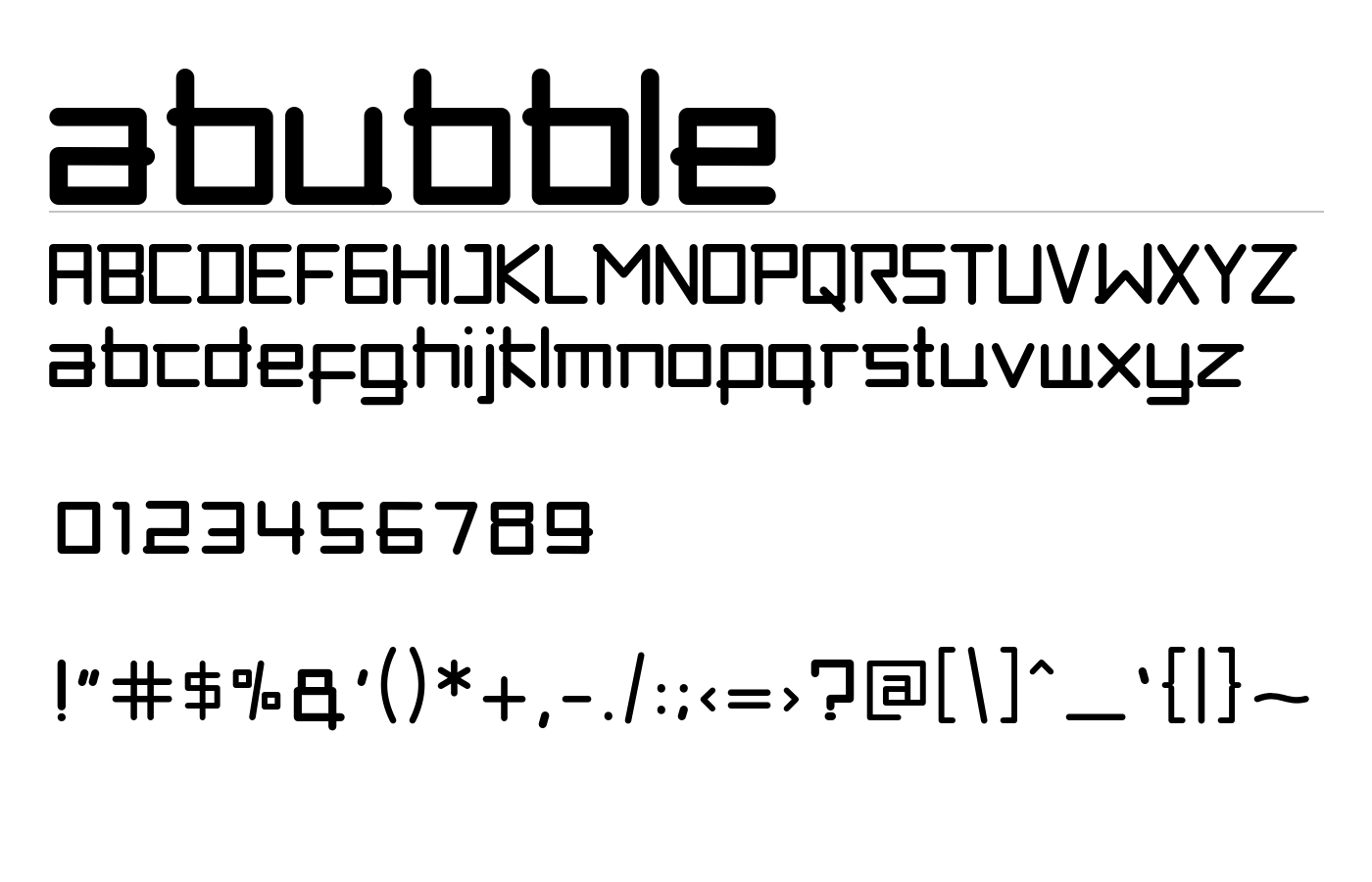
Abubble is a modern, geometric sans serif font with a clean, slightly condensed structure and consistent stroke weight that gives it a balanced, technical feel. Its squared shapes and rounded terminals create a friendly yet futuristic personality, making it ideal for tech brands, digital interfaces, and contemporary design projects seeking a distinctive but approachable look. This font works well in logos, headings, and editorial uses where clarity and modern style are key.
abubble Font